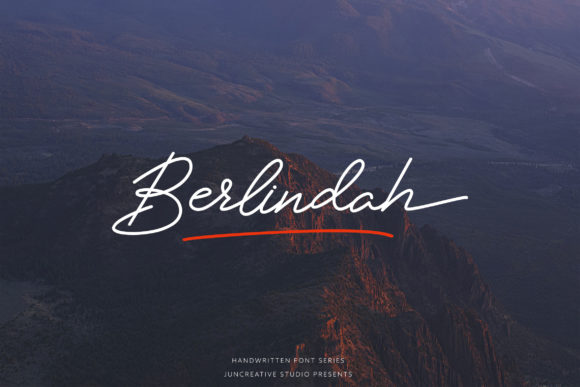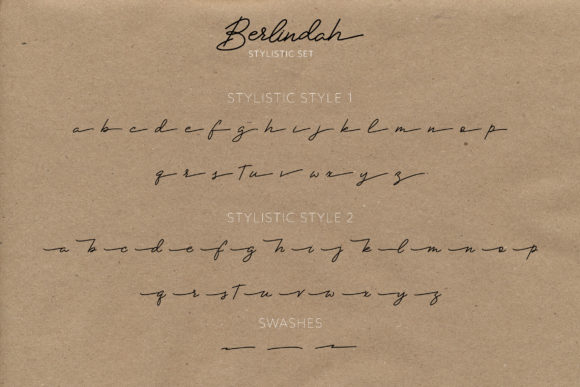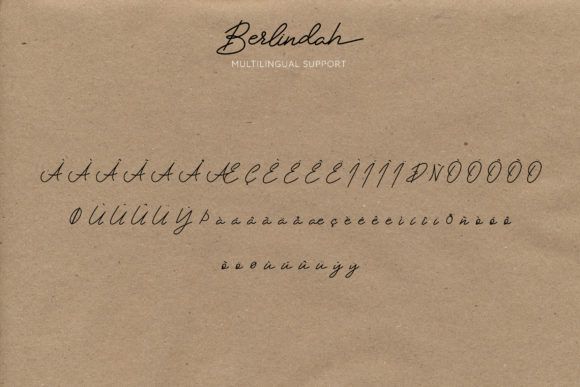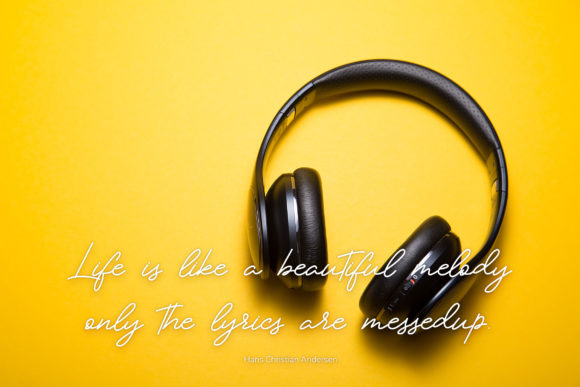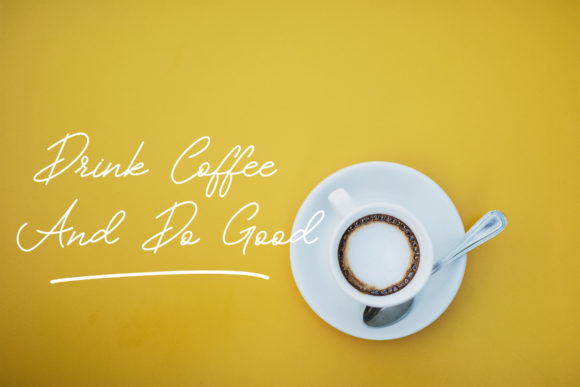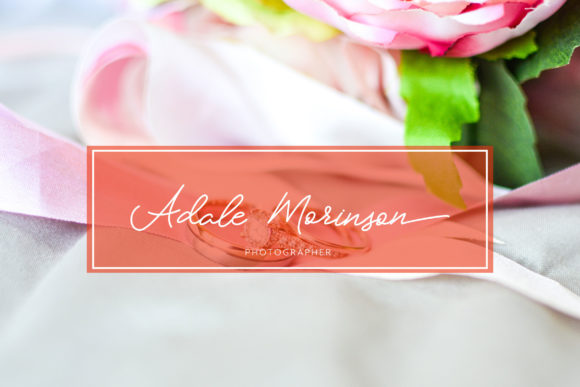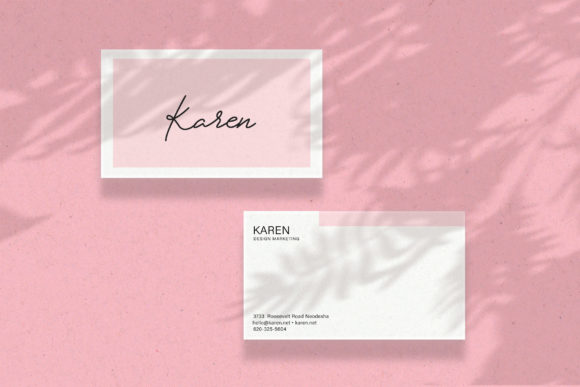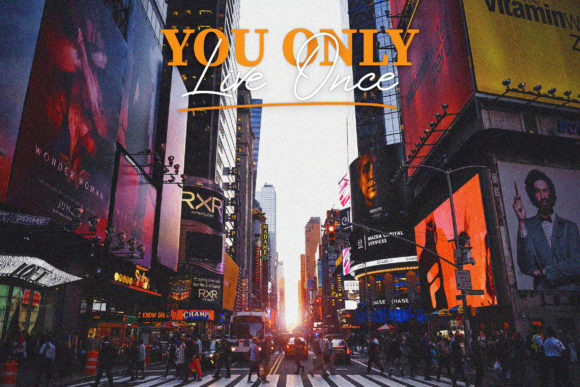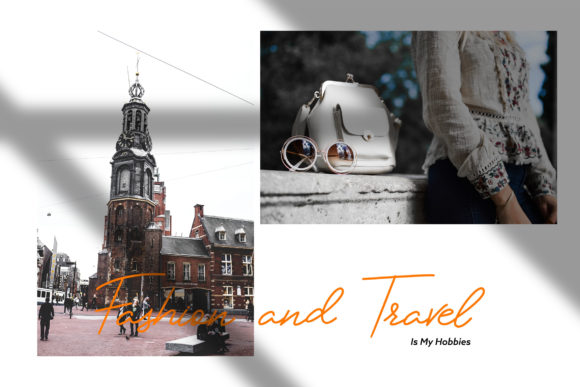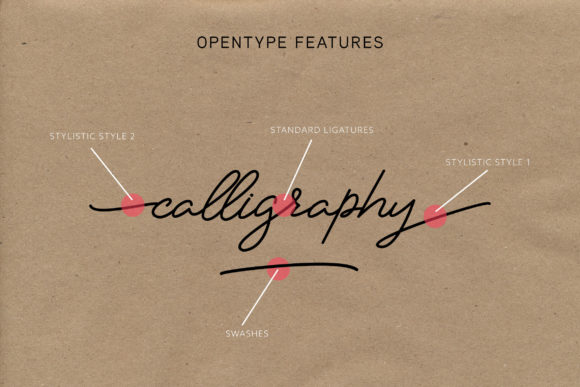
Berlindah Font
About Berlindah Font
Berlindah is a handwritten signature script with natural & stylish flow. It will add a romantic touch to any crafting project!